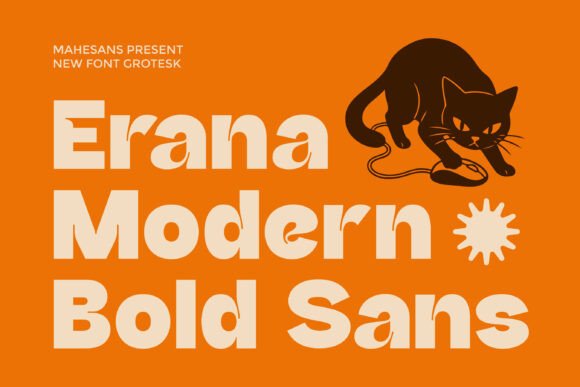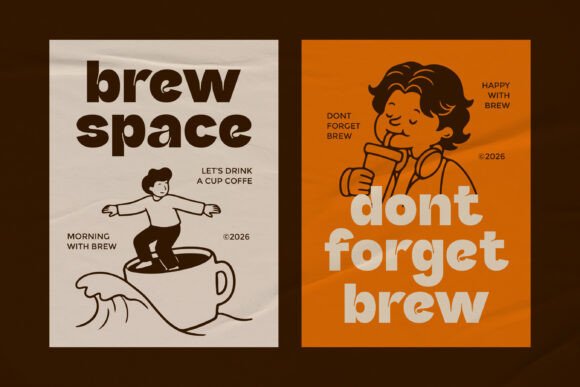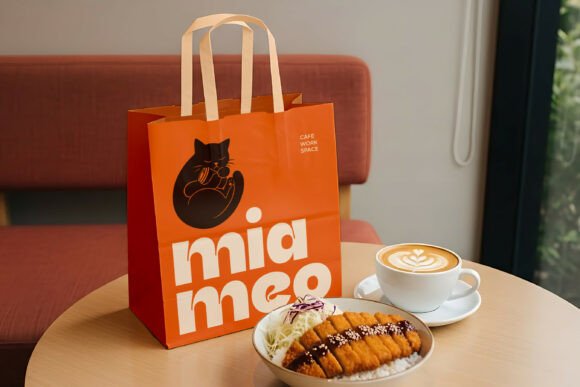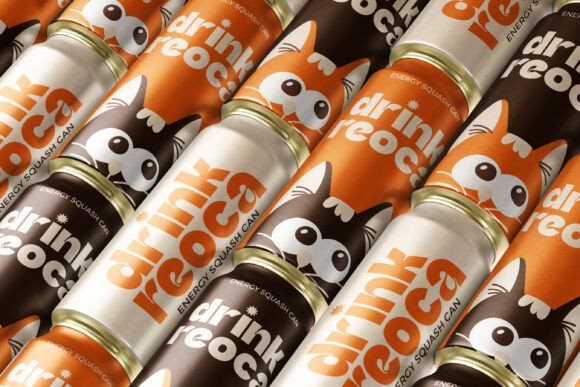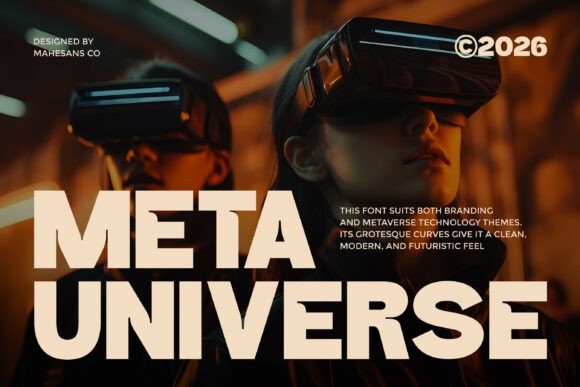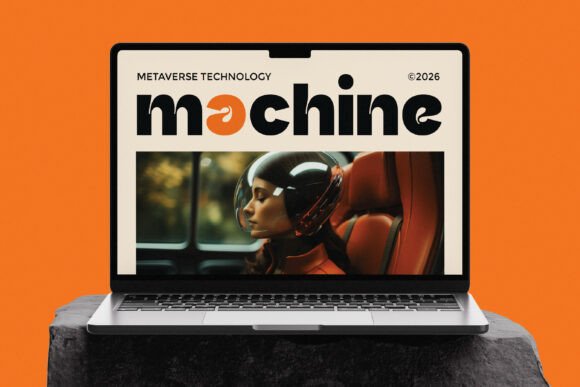
Introducing Erana Font: The Perfect Blend of Modern Grotesk and Vintage Charm
Are you a designer or crafter looking for a font that can add a strong personality and playful character to your designs? Look no further than Erana Font, a bold retro-inspired sans serif font that’s perfect for creating striking visuals with a friendly and modern retro vibe.
The Unique Characteristics of Erana Font
Erana Font is designed to bring a perfect balance between modern grotesk structure and vintage charm. Its chunky shapes, smooth curves, and distinctive letterforms make it a standout font that’s sure to grab attention. The thick strokes and unique details give every word a strong visual presence while keeping the text highly readable.
Perfect for Bold Headlines and Eye-Catching Branding
Erana Grotesk works beautifully for bold headlines and eye-catching branding. Its bold and playful character makes it perfect for designers who want to create striking visuals that can capture the audience’s attention. Whether you’re designing a logo, brochure, or website, Erana Font is sure to make your design stand out.
Key Features of Erana Font
- Bold and Playful Character: Erana Font has a bold and playful character that’s perfect for creating striking visuals.
- Chunky Shapes and Smooth Curves: The font features chunky shapes and smooth curves that give it a unique and distinctive look.
- Distinctive Letterforms: Erana Font has distinctive letterforms that set it apart from other fonts.
- Highly Readable: Despite its bold character, Erana Font is highly readable, making it perfect for use in a variety of design projects.
Why Choose Erana Font?
So why choose Erana Font for your design projects? Here are just a few reasons:
- Unique and Eye-Catching: Erana Font is a unique and eye-catching font that’s sure to grab attention.
- Versatile: The font is versatile and can be used in a variety of design projects, from logos and brochures to websites and social media graphics.
- Easy to Read: Despite its bold character, Erana Font is easy to read, making it perfect for use in designs where readability is important.
- Modern Retro Vibe: Erana Font has a modern retro vibe that’s perfect for designers who want to create striking visuals with a friendly and approachable feel.
How to Use Erana Font in Your Designs
Erana Font is easy to use in a variety of design projects. Here are a few tips for incorporating the font into your designs:
- Use it for Headlines: Erana Font is perfect for use in headlines and titles, where its bold character can really make an impact.
- Pair it with Other Fonts: Erana Font can be paired with other fonts to create a unique and eye-catching look.
- Experiment with Different Colors: The font looks great in a variety of colors, so don’t be afraid to experiment and find the perfect color for your design.
Erana Font is a bold retro-inspired sans serif font that’s perfect for designers who want to create striking visuals with a friendly and modern retro vibe. Its unique characteristics, versatility, and readability make it a great choice for a variety of design projects. Whether you’re designing a logo, brochure, or website, Erana Font is sure to make your design stand out.